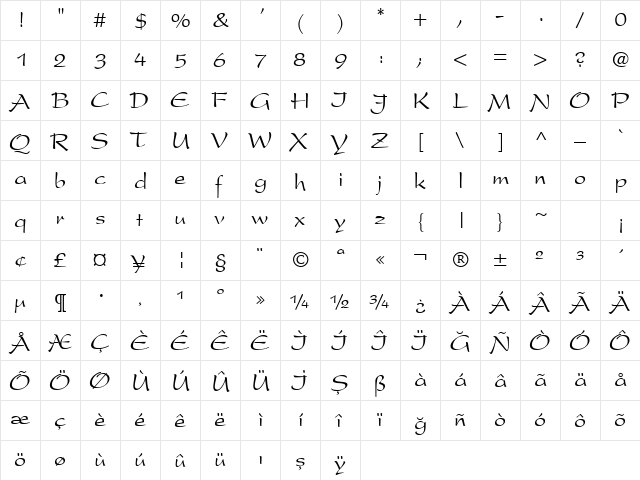
00815 Regular
Design Context for 00815 Typeface
00815 is a composed and adaptable typeface that performs quietly and consistently across a wide range of design contexts.